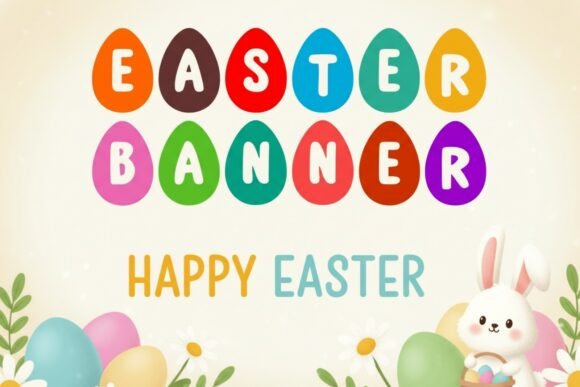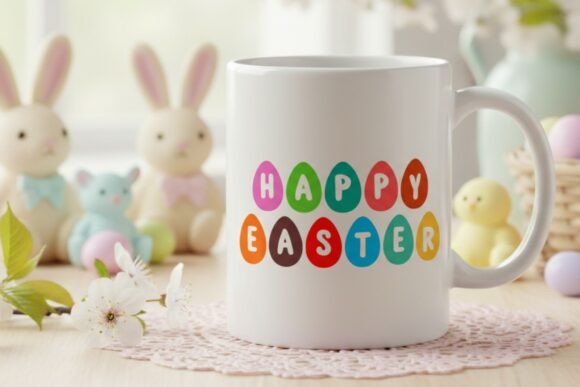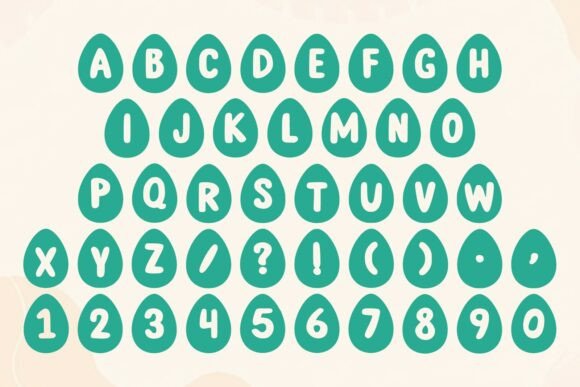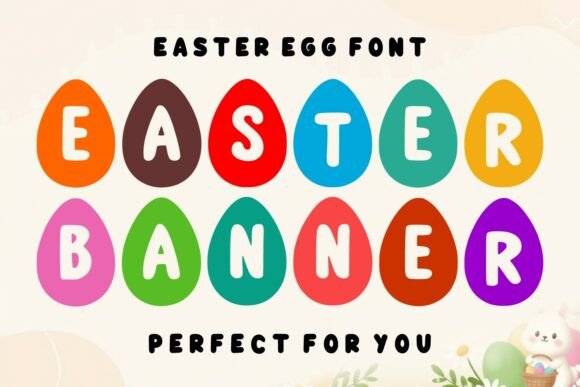
Easter Banner Font: Add a Playful Touch to Your Holiday Designs
Are you looking for a font that captures the fun and cheerful spirit of Easter? Look no further than Easter Egg, a delightful display font inspired by the playful vibes of the holiday. With its soft, rounded letterforms and friendly, whimsical style, this font is perfect for adding a touch of joy and festivity to your Easter-themed designs.
What Makes Easter Egg Font So Special?
Easter Egg font is a unique and charming typeface that is sure to make your text stand out. Its soft, rounded letterforms give it a friendly and approachable feel, making it perfect for designs that require a playful and cheerful touch. The font’s whimsical style is reminiscent of childhood memories and carefree days, making it an excellent choice for kids’ projects, greeting cards, posters, and invitations.
Perfect for Easter-Themed Designs
Easter Egg font is specifically designed with Easter-themed designs in mind. Whether you’re creating a banner, poster, or social media graphic, this font is sure to add a festive touch to your design. Its joyful and cute personality makes it perfect for Easter egg hunts, bunny-themed designs, and spring-inspired projects.
Versatile and Fun
The Easter Egg font is not just limited to Easter-themed designs. Its playful and cheerful style makes it perfect for a wide range of projects, including:
• Kids’ projects: Create fun and engaging designs for kids with Easter Egg font.
• Greeting cards: Add a personal touch to your greeting cards with this charming font.
• Posters: Create eye-catching posters for Easter events, sales, or promotions.
• Invitations: Design beautiful and festive invitations for Easter parties or events.
• Branding: Use Easter Egg font to add a playful touch to your brand’s packaging and marketing materials.
• T-shirts: Create fun and quirky designs for Easter-themed t-shirts.
• Social media graphics: Add a festive touch to your social media graphics and make your content stand out.
Why Choose Easter Egg Font?
There are many reasons why Easter Egg font is an excellent choice for your design projects. Here are a few:
• Unique and playful style: Easter Egg font has a one-of-a-kind style that is sure to make your designs stand out.
• Easy to read: The font’s soft, rounded letterforms make it easy to read, even at smaller sizes.
• Versatile: Easter Egg font can be used for a wide range of projects, from Easter-themed designs to kids’ projects and more.
• Festive and fun: This font is perfect for adding a touch of joy and festivity to your designs.
Tips for Using Easter Egg Font
Here are a few tips for getting the most out of Easter Egg font:
• Use it for headings: Easter Egg font is perfect for headings and titles, where you want to make a bold and playful statement.
• Pair it with other fonts: Try pairing Easter Egg font with other fonts to create a unique and interesting contrast.
• Experiment with colors: Easter Egg font looks great in bright, bold colors, but it can also be used with pastel colors for a softer look.
Easter Egg font is a fun and cheerful display font that is perfect for adding a playful touch to your Easter-themed designs. With its soft, rounded letterforms and friendly, whimsical style, this font is sure to make your text stand out beautifully. Whether you’re a designer or crafter, Easter Egg font is an excellent choice for a wide range of projects, from kids’ projects to social media graphics. So why not give it a try and add some Easter cheer to your designs?